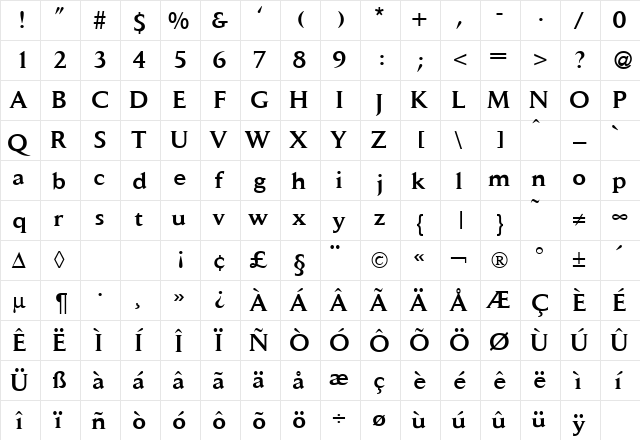
DaylightMedium Regular Font Preview
DaylightMedium Regular
DaylightMedium Regular Font Details
Design Context for DaylightMedium Typeface
DaylightMedium is a composed and adaptable typeface that performs quietly and consistently across a wide range of design contexts. Its slender proportions lend an understated elegance to any composition.